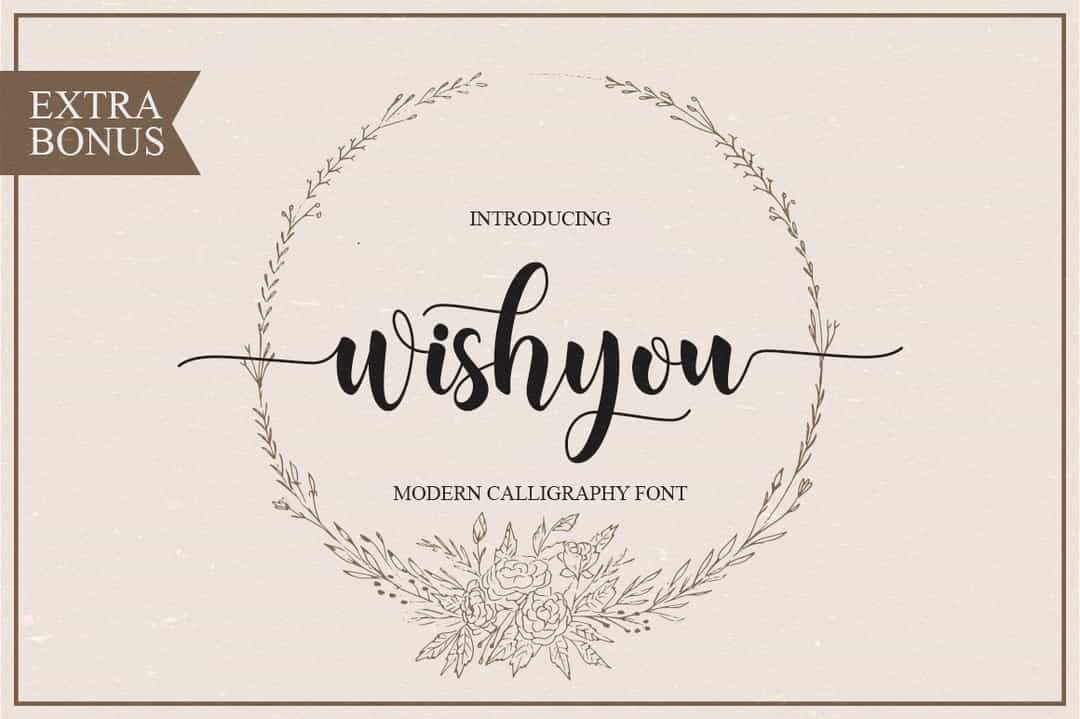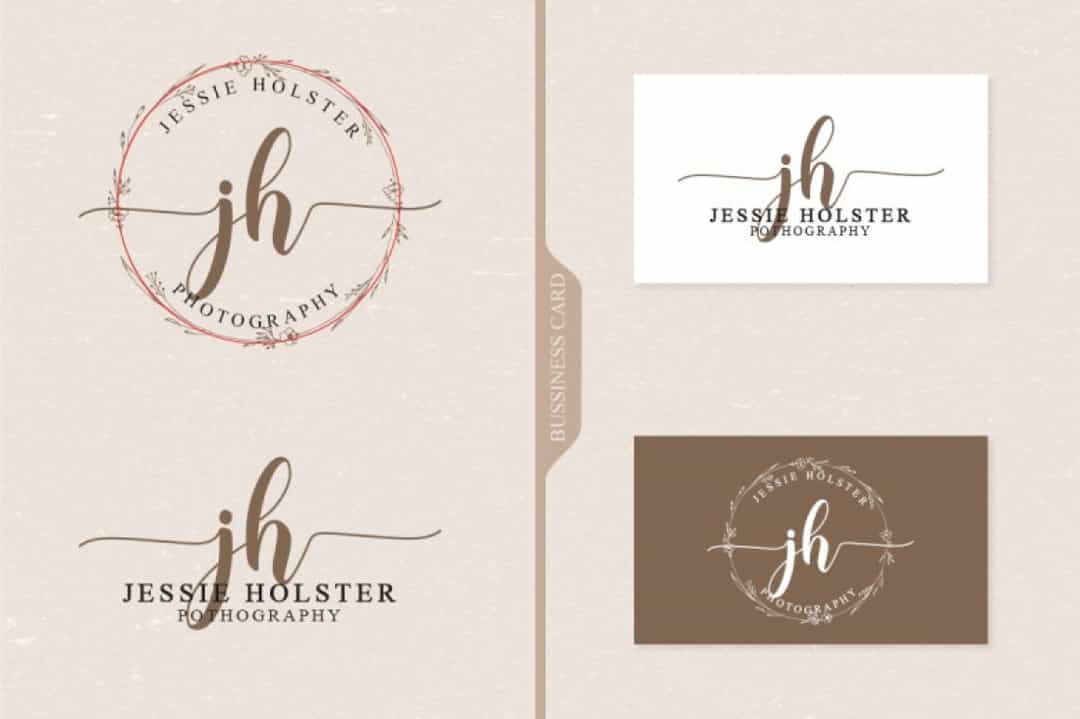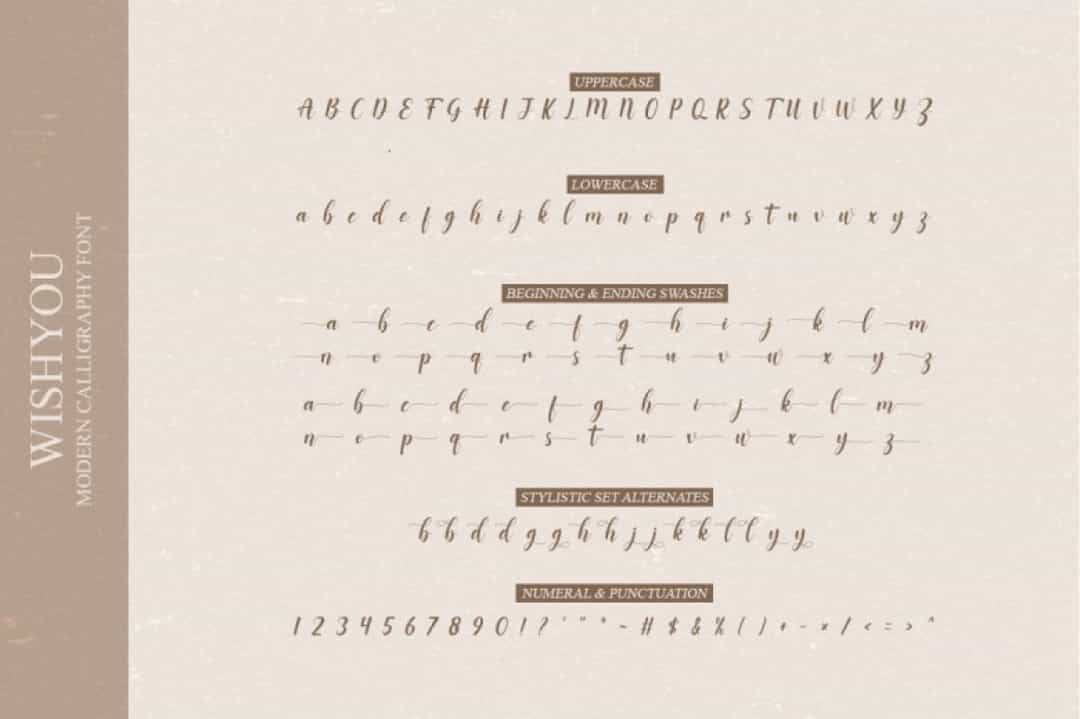
Wishyou Font is an elegant and stunningly graceful calligraphic script font designed for calligraphy. PUA encoded, it allows easy access to all glyphs and swashes! Sweet yet delicate in nature, Wishyou is ideal for invites to wedding receptions and cards as well as any romantic designs which require personal designs with romantic sentimentality!